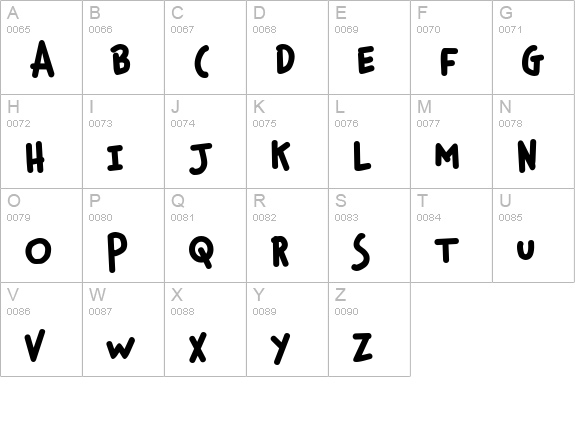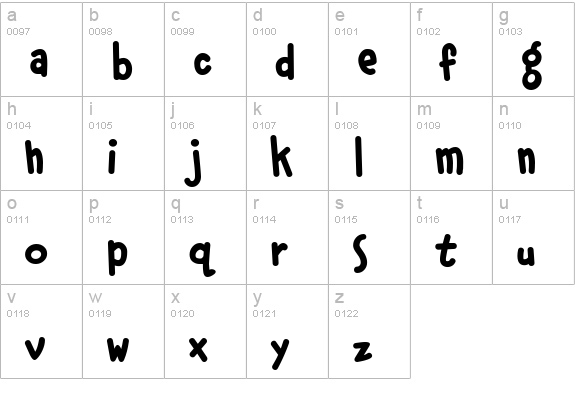
PFPhatFace Normal is the standard, neutral variant in the PFPhatFace typeface family \xE2\x80\x94 well suited to general body text, paragraphs, and standard typographic work.
PFPhatFace Normal is a versatile and modern display font that exudes boldness and personality. With its thick and eye-catching letterforms, this font is perfect for creating impactful headlines, posters, branding materials, and more. PFPhatFace Normal strikes the perfect balance between playfulness and professionalism, making it suitable for a wide range of design projects. Best of all, this font is available for free download at FontsMarket.com. Whether you're a designer looking to add a unique touch to your projects or someone in need of a standout typeface for personal use, PFPhatFace Normal is a fantastic choice that won't cost you a thing. Don't miss out on the opportunity to enhance your designs with this exceptional font that is just a click away for free at FontsMarket.com.